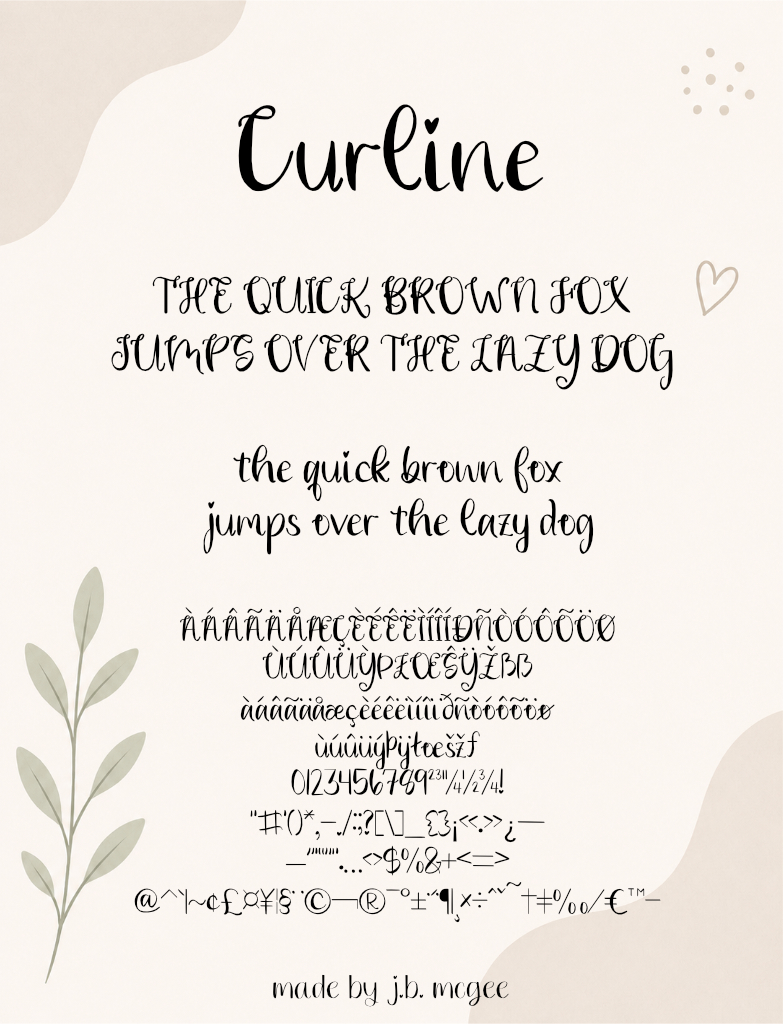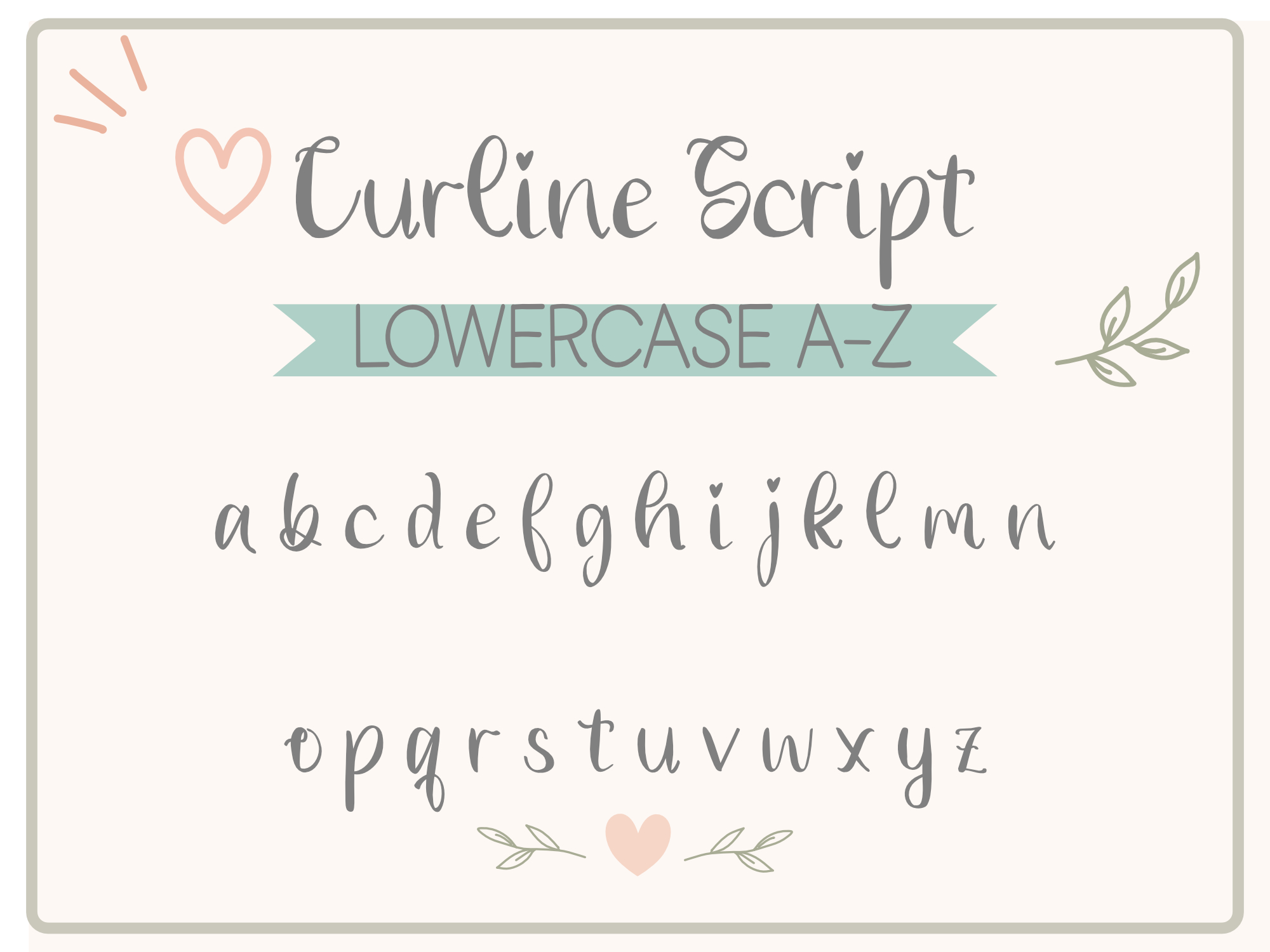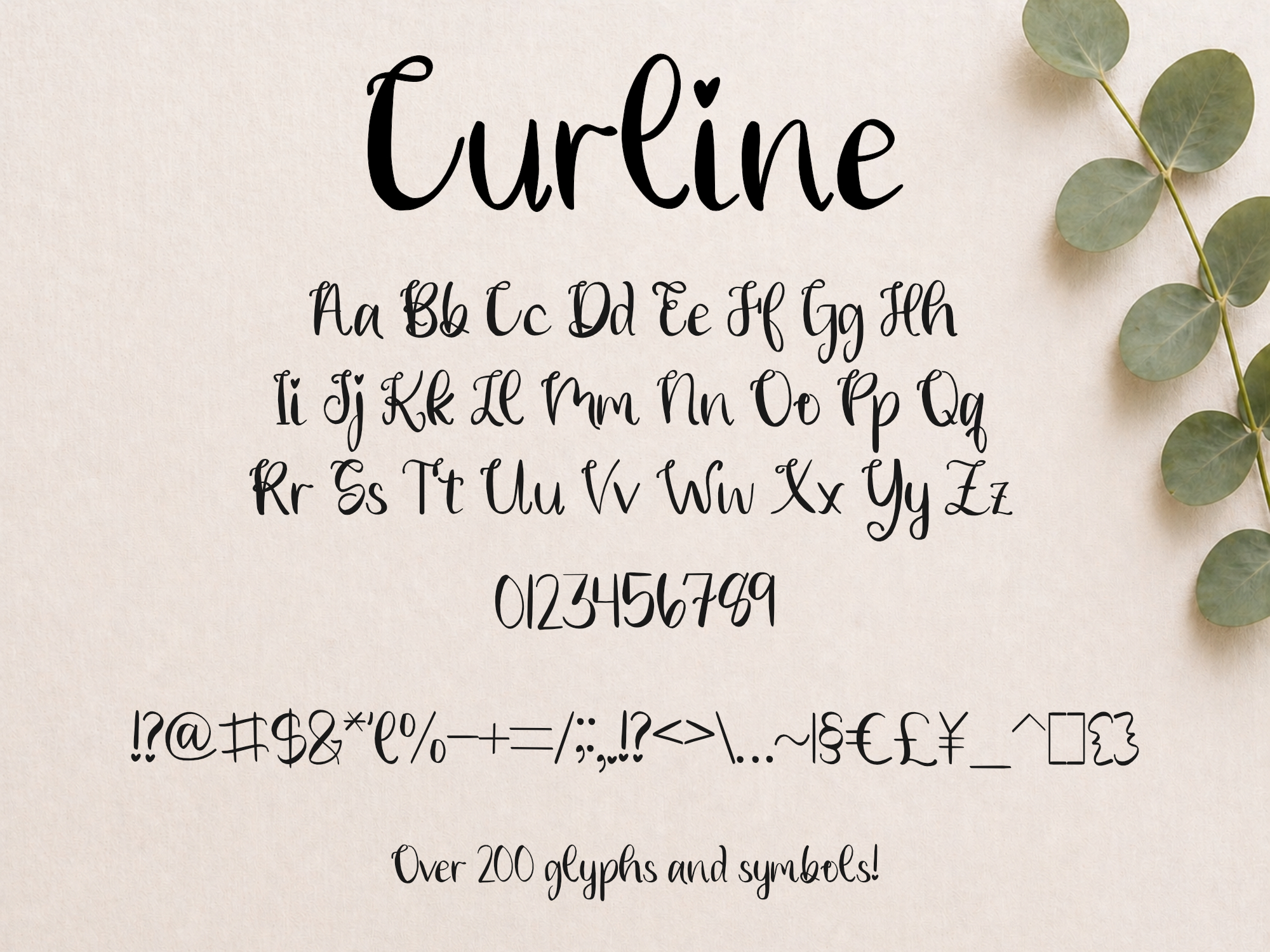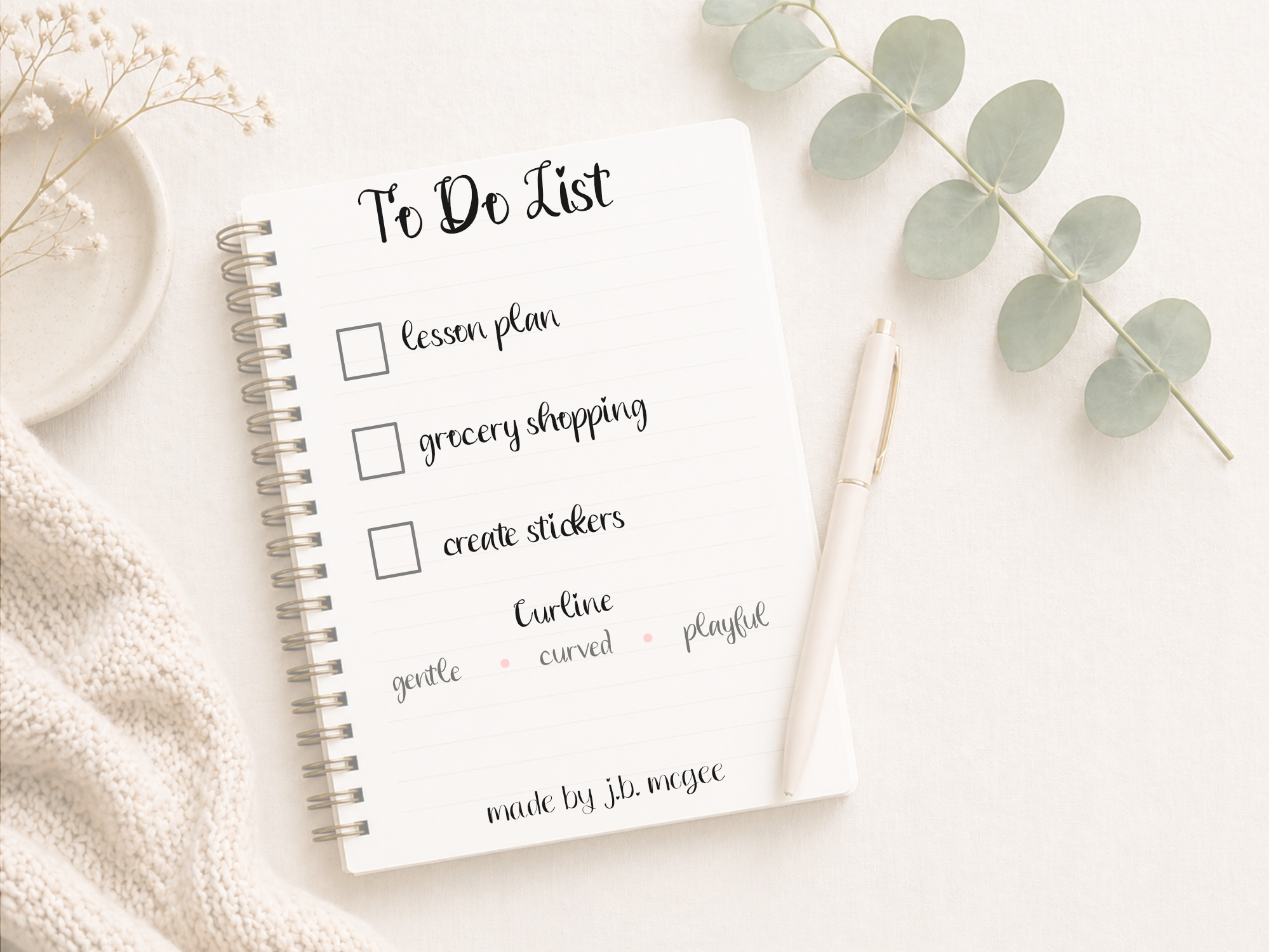
Curline Font
Gentle. Curved. Playful
Curline Print is a rounded handwritten font with soft curves, playful details, and a clean monoline structure. It keeps a relaxed handwritten feel while staying readable and balanced, making it easy to use across both practical and creative projects.
The subtle curl details give this font personality without making it overly decorative. It works well for planners, teacher resources, labels, social media graphics, branding, stickers, and digital products that need a friendly handwritten look.
What makes Curline Print stand out:
• Rounded letterforms with gentle curl details
• Consistent monoline strokes
• Easy readability at small and large sizes
• Relaxed handwritten feel without looking messy
• Balanced for both print and digital use
Perfect for:
• Planners and inserts
• Teacher worksheets and classroom resources
• Labels and organization
• Branding and logos
• Social media graphics
• Stickers and printables
• Uppercase and lowercase letters
• Numbers and punctuation
• Symbols and special characters
• Standard multilingual support (as shown in previews)